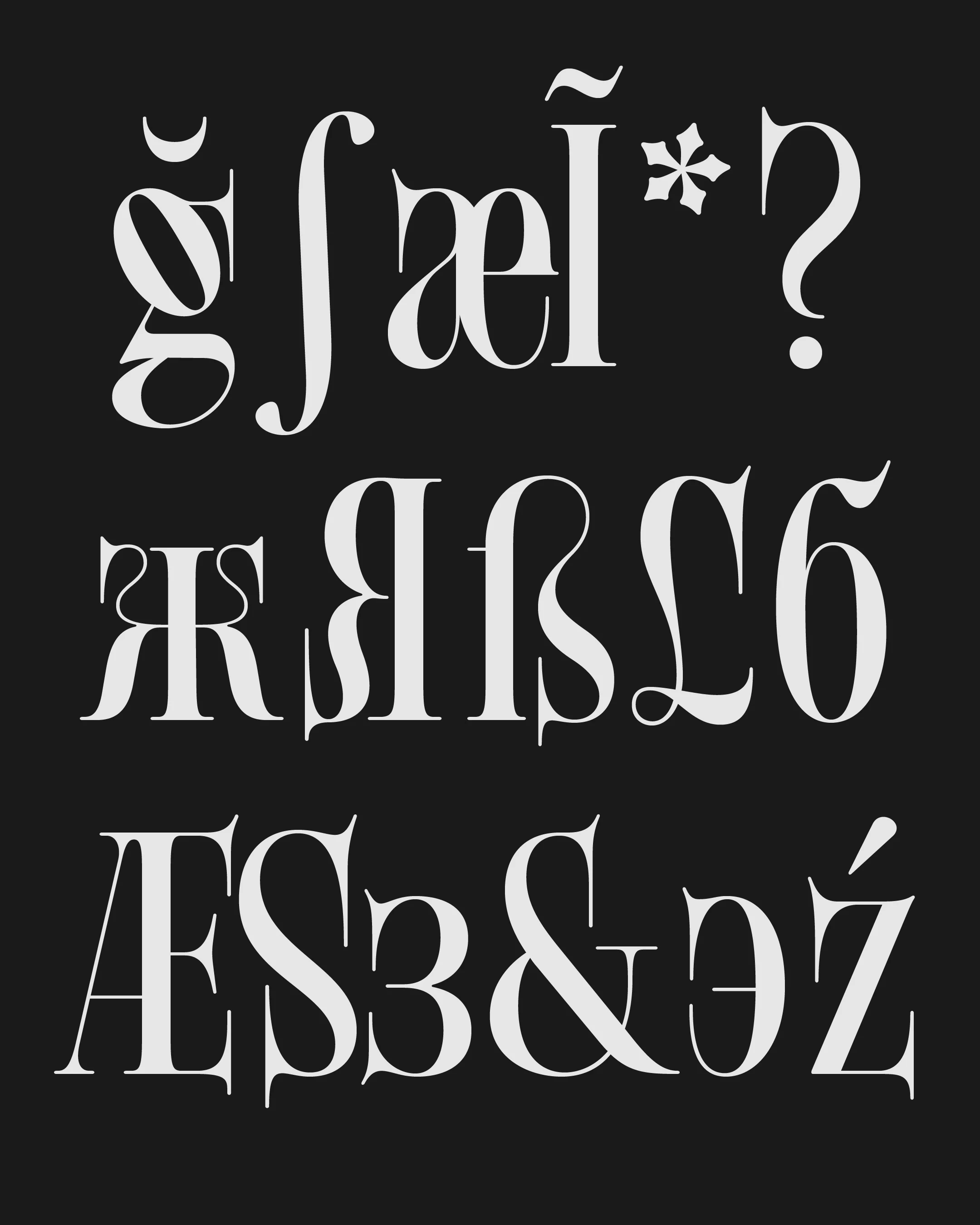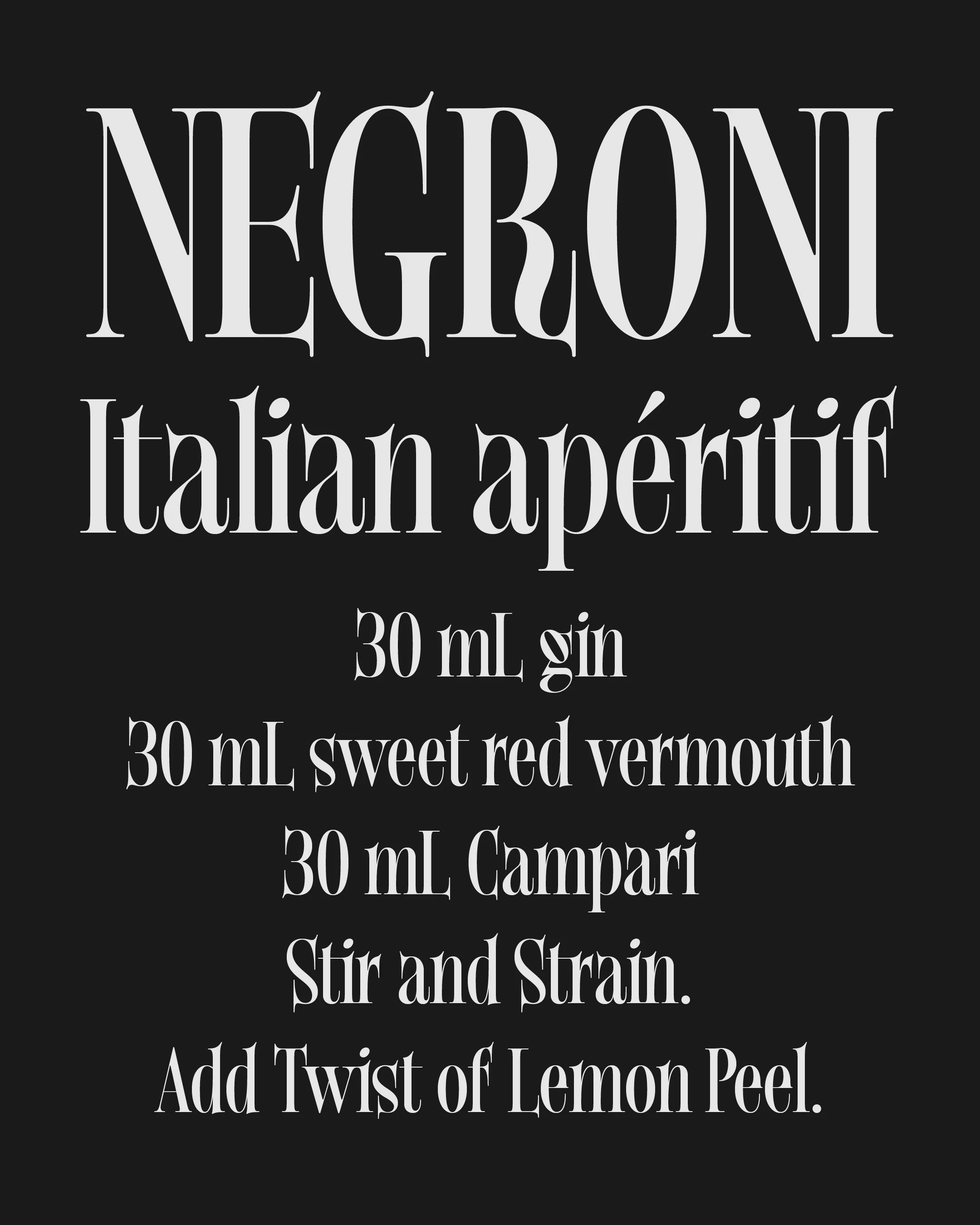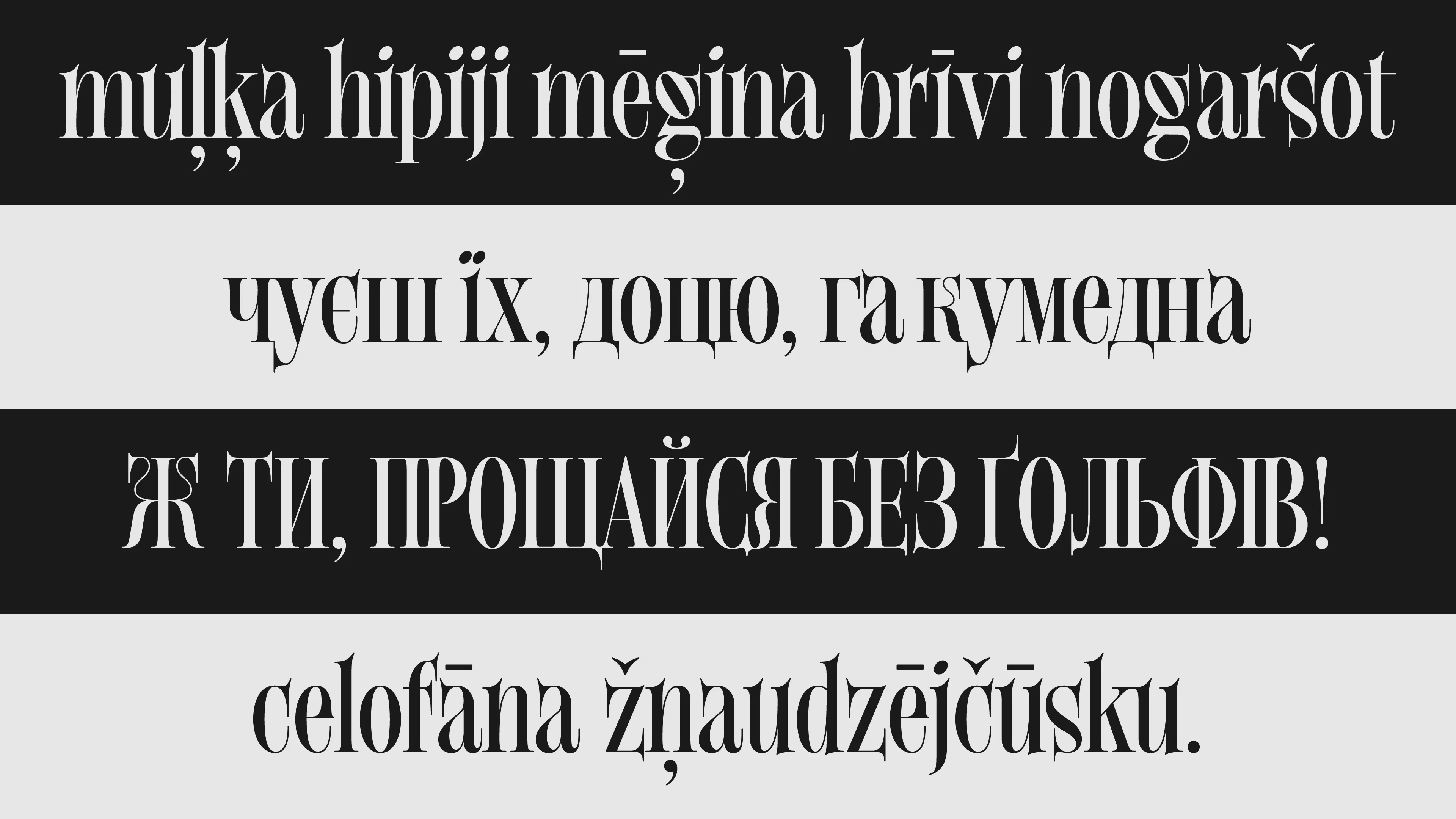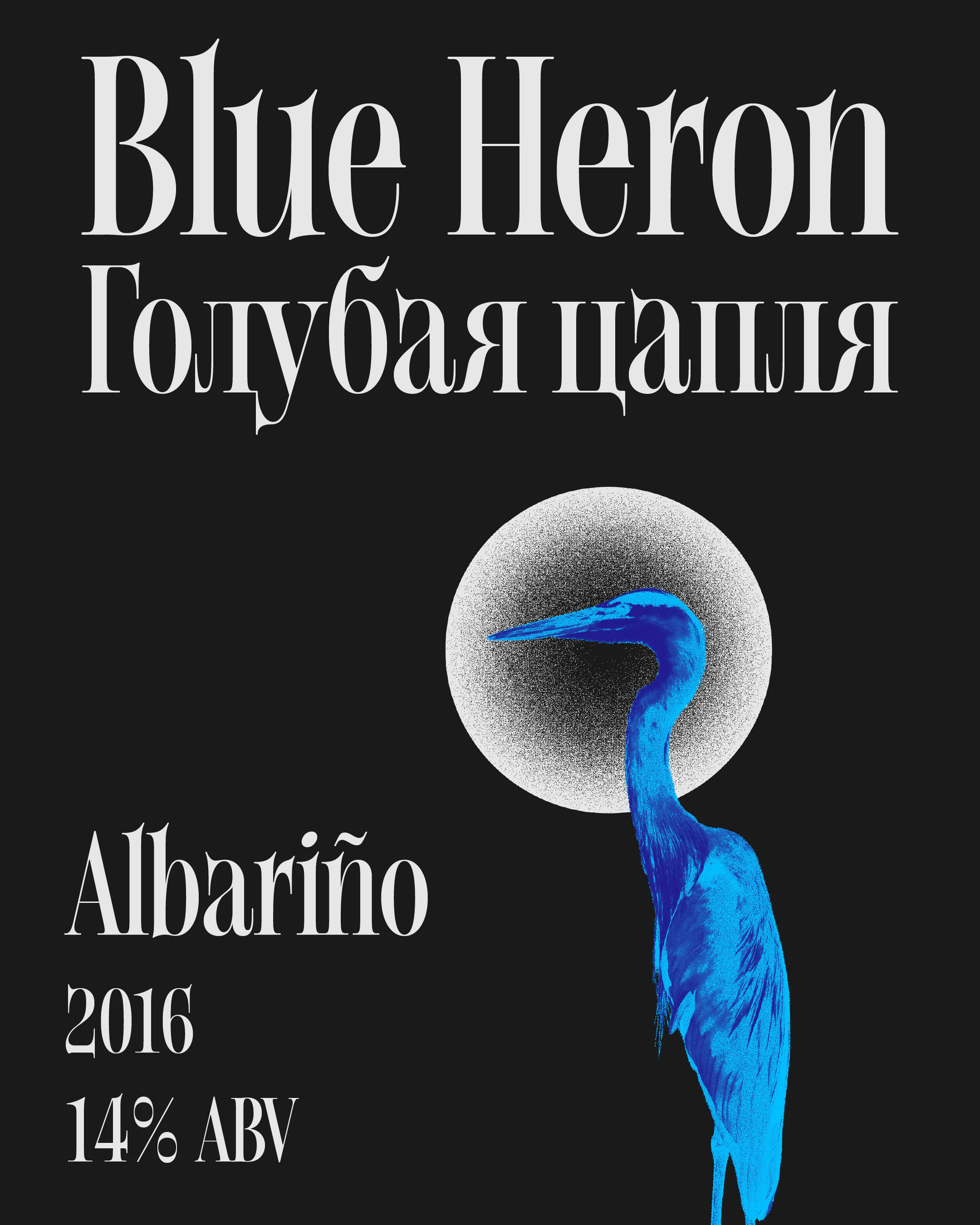
A typeface to be experienced
„In philosophy of mind, qualia (singular: quale) are defined as instances of subjective experience. The term qualia derives from the Latin neuter plural form (qualia) of the Latin adjective quālis meaning “of what sort” or “of what kind” in relation to a specific instance, such as “what it is like to taste a specific apple — this particular apple now“.“
Quale is a high contrast single style serif made to look. Occasionally connecting serifs and condensed construction makes it perfect for large titles. It has extensive Cyrillic and latin support.
Font in Progress
Although Quale is in advanced state, it requires a bit of additional kerning and ocational debugging. Here it is presented as is. You might spot some faulty charachters.